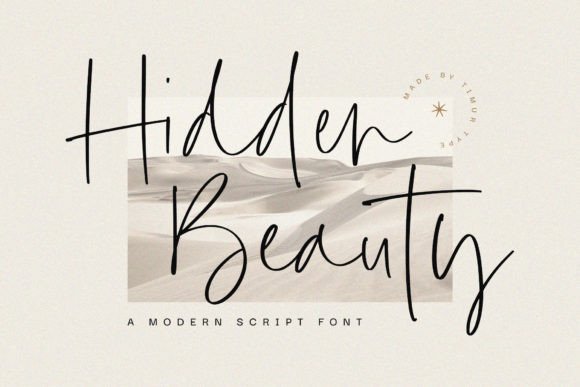
Unveiling the Elegance of Hidden Beauty Font: A Perfect Choice for Your Creative Projects
In the realm of typography, fonts play a pivotal role in conveying messages, evoking emotions, and creating a lasting impression. Among the myriad of fonts available, the Hidden Beauty font stands out for its unique blend of elegance and simplicity. This article aims to explore the characteristics, uses, and benefits of the Hidden Beauty font, particularly in the context of product packaging, branding projects, magazines, social media, weddings, and more.
What is Hidden Beauty Font?
Hidden Beauty is a clean and thin handwritten font that has garnered attention for its aesthetic appeal and versatility. Its clean lines and thin strokes lend it a modern and sophisticated look, making it an ideal choice for a wide range of applications. Whether you’re looking to add a touch of elegance to your product packaging, create a memorable brand identity, or simply enhance the visual appeal of your social media posts, Hidden Beauty font proves to be a perfect companion.
Key Features of Hidden Beauty Font
- Clean and Thin Handwritten Style: The font’s clean and thin strokes contribute to its elegant and minimalist appearance, allowing it to complement a variety of design themes without overpowering them.
- Versatility: Hidden Beauty font is incredibly versatile, making it suitable for use in product packaging, branding projects, magazines, social media content, wedding invitations, and more.
- Ease of Readability: Despite its thin strokes, the font maintains a high level of readability, ensuring that your message is conveyed clearly and effectively.
- Emotional Connection: The handwritten nature of the font adds a personal touch, helping to create an emotional connection with your audience.
Applications of Hidden Beauty Font
Product Packaging
In the competitive world of product packaging, standing out on the shelves is crucial. The Hidden Beauty font offers a sophisticated and modern approach to packaging design. Its elegance and simplicity can elevate the perceived value of your product, making it more appealing to potential customers.
Branding Projects
Branding is about creating a consistent identity that resonates with your target audience. The Hidden Beauty font can play a significant role in this process. Its unique style can be used across various branding materials, from logos and business cards to website headers and social media graphics, ensuring a cohesive and professional look.
Magazines and Publications
For magazines and publications, the choice of font can significantly impact readability and reader engagement. Hidden Beauty font, with its clean and thin strokes, is an excellent choice for article titles, subtitles, and even body text, offering a refreshing reading experience.
Social Media
In the digital age, social media platforms are vital channels for communication and marketing. The Hidden Beauty font can add a touch of sophistication to your social media posts, stories, and graphics, helping you stand out in crowded feeds and engage your audience more effectively.
Weddings and Events
Weddings and special events are occasions where personalization and elegance are paramount. Hidden Beauty font can be used to create beautiful wedding invitations, event programs, and decor signage, adding a personal and elegant touch to your celebrations.
Benefits of Using Hidden Beauty Font
- Unique Aesthetic: The font offers a unique aesthetic that can differentiate your projects from others, making them more memorable.
- Flexibility: Its versatility means it can be used across a wide range of projects and applications.
- Emotional Resonance: The personal touch of a handwritten font can create a stronger emotional connection with your audience.
- Readability: Despite its elegance, the font does not compromise on readability, ensuring your message is always conveyed clearly.
How to Use Hidden Beauty Font Effectively
Pairing with Other Fonts
To maximize the impact of Hidden Beauty font, consider pairing it with complementary fonts. A combination of a thin, elegant font like Hidden Beauty with a more robust font can create visual interest and hierarchy in your designs.
Choosing the Right Colors
Color plays a crucial role in design. When using Hidden Beauty font, choose colors that complement its elegance. Neutral colors like whites, blacks, and grays can highlight the font’s beauty, while soft pastels can add a touch of warmth and personality.
The Hidden Beauty font offers a unique blend of elegance, simplicity, and versatility, making it an excellent choice for a wide range of creative projects. Whether you’re working on product packaging, branding, magazines, social media, or planning a wedding, this font can add a touch of sophistication and personalization. By understanding its features, applications, and how to use it effectively, you can leverage Hidden Beauty font to create visually stunning and impactful designs.
As you explore the possibilities with Hidden Beauty font, you’ll discover its potential to elevate your designs and connect with your audience on a deeper level. With its clean and thin handwritten style, this font is not just a typographical choice but a design statement that speaks elegance, simplicity, and creativity.